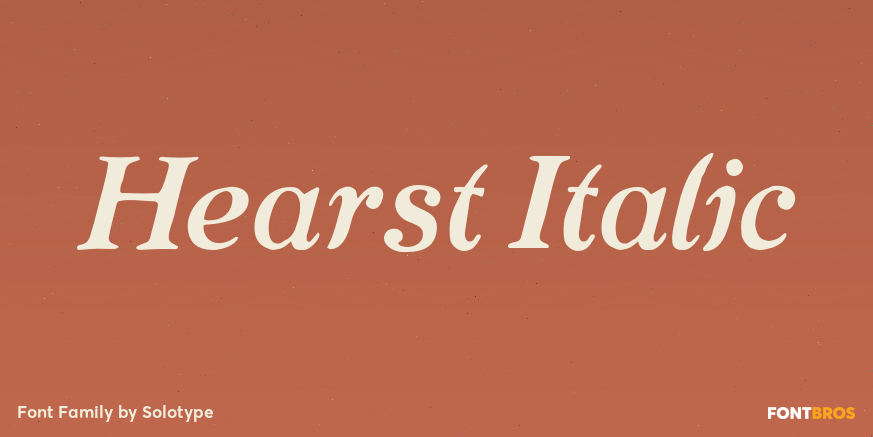
HomeFont BrosSerifHearst Italic Serif Hearst Italic FacebookXPinterestWhatsApp 1 of 1 About Hearst Italic Carl Schraubstadter of the Inland Type Foundry probably had more to do with the design of this italic than he did with the roman. Great for Craftsman Era projects.  DOWNLOAD NOW People also explored Liyanglahat Font Shockerous Font Happy Kids Font Hopkins Angela Font Nadine Font Little Dolphins Font Space Jam Font Kedurus Font Vallentina Font 214 0 TagsHearst Italic Font Previous articleNordecoNext articleVerve LEAVE A REPLY Cancel reply Comment: Please enter your comment! Name:* Please enter your name here Email:* You have entered an incorrect email address! Please enter your email address here Website: Save my name, email, and website in this browser for the next time I comment. Personal Use Free Tomatoes Personal Use Free Read more about this font Alnair Star Personal Use Free Read more about this font Zelega Zenega Personal Use Free Read more about this font Thruster Personal Use Free Read more about this font BLOG Free vs Paid Fonts: Why Investing in Premium Fonts Is Worth It Free vs Paid Fonts: Why Premium Fonts Are Worth It in 2025 The debate of free vs paid fonts continues in the design world. While... Top 10 Handwritten Fonts That Elevate Your Designs The 10 Best Handwriting Fonts to Add Personality to Your Designs Where to Buy American Fonts Online in 2024